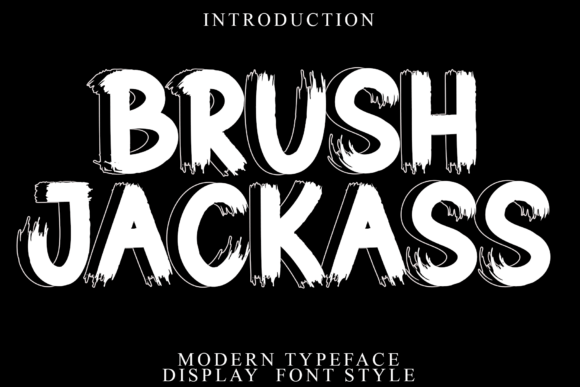
Introducing Brush Jackass Font: The Ultimate Display Font for Creative Designs
Are you looking for a font that can add a touch of playfulness and creativity to your designs? Look no further than Brush Jackass Font. This fun and playful display font is perfect for eye-catching headlines, posters, and creative designs. With its bold, lively letters, Brush Jackass Font is sure to make your project stand out from the crowd.
What is Brush Jackass Font?
Brush Jackass Font is a display font that looks like it was hand-painted with a brush. Its unique and casual feel makes it perfect for projects that need a friendly and artistic touch. The font has a bold and lively appearance, making it ideal for headlines, titles, and other creative designs.
Key Features of Brush Jackass Font
- Hand-painted look: Brush Jackass Font has a unique, hand-painted look that gives it a playful and creative feel.
- Bold and lively letters: The font features bold, lively letters that are perfect for eye-catching headlines and titles.
- Casual feel: Brush Jackass Font has a casual feel that makes it great for projects that need a friendly and artistic touch.
- Perfect for creative designs: The font is ideal for creative designs, such as posters, flyers, and brochures.
Uses of Brush Jackass Font
Brush Jackass Font is a versatile font that can be used for a variety of creative projects. Here are some of the most popular uses of the font:
1. Headlines and Titles
Brush Jackass Font is perfect for headlines and titles that need to make a bold statement. Its bold and lively letters are sure to grab attention and add a touch of creativity to your design.
2. Posters and Flyers
The font is ideal for posters and flyers that need to stand out from the crowd. Its hand-painted look and casual feel make it perfect for promoting events, products, or services.
3. Brochures and Catalogs
Brush Jackass Font can also be used in brochures and catalogs to add a touch of creativity and friendliness. Its bold and lively letters are sure to make your project more engaging and interesting.
4. Social Media Graphics
The font is also perfect for social media graphics, such as Facebook posts, Twitter headers, and Instagram stories. Its bold and lively letters are sure to grab attention and add a touch of creativity to your social media presence.
Benefits of Using Brush Jackass Font
There are many benefits to using Brush Jackass Font in your creative projects. Here are some of the most significant advantages:
1. Unique and Creative Look
Brush Jackass Font has a unique and creative look that sets it apart from other fonts. Its hand-painted look and casual feel make it perfect for projects that need a friendly and artistic touch.
2. Easy to Read
Despite its bold and lively appearance, Brush Jackass Font is easy to read and understand. Its clear and legible letters make it perfect for headlines, titles, and other creative designs.
3. Versatile
Brush Jackass Font is a versatile font that can be used for a variety of creative projects. Its bold and lively letters make it perfect for headlines, titles, posters, flyers, brochures, and more.
4. Time-Saving
Using Brush Jackass Font can save you time and effort in your creative projects. Its unique and creative look eliminates the need to spend hours designing a custom font or searching for the perfect font.
Brush Jackass Font is a fun and playful display font that can add a touch of creativity and friendliness to your designs. Its bold, lively letters and hand-painted look make it perfect for eye-catching headlines, posters, and creative designs. With its versatility, ease of use, and unique look, Brush Jackass Font is a great addition to any designer’s toolkit.
Final Thoughts
Whether you’re a designer, artist, or simply someone who loves creative projects, Brush Jackass Font is a great choice. Its bold and lively letters are sure to grab attention and add a touch of creativity to your project. So why not give it a try and see the difference it can make?